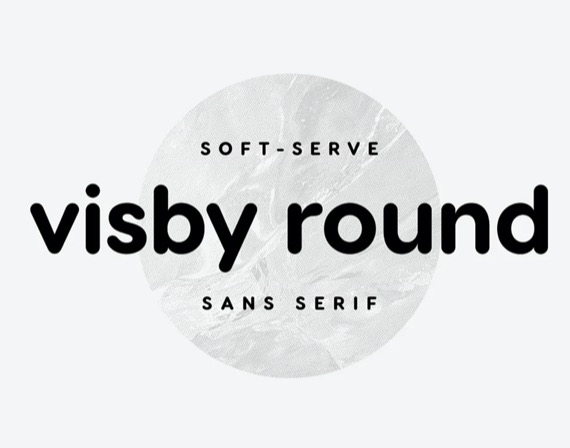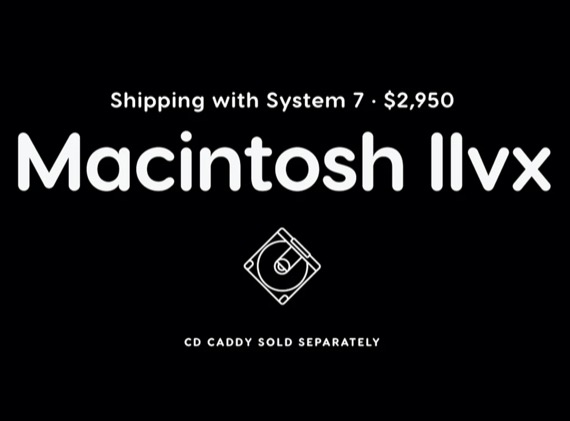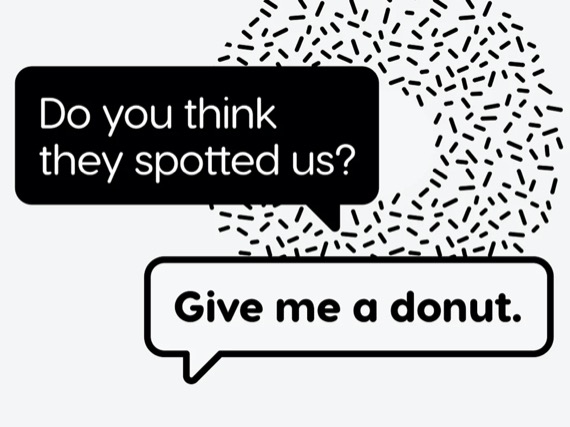
Visby Round is a soft geometric sans serif font that was created and released by Connary Fagen. It takes the charismatic forms of its older sibling and softens them, creating a friendly, fresh new look. Perfect anywhere you need a little smooth goodness.
Visby Round Sans Serif Font